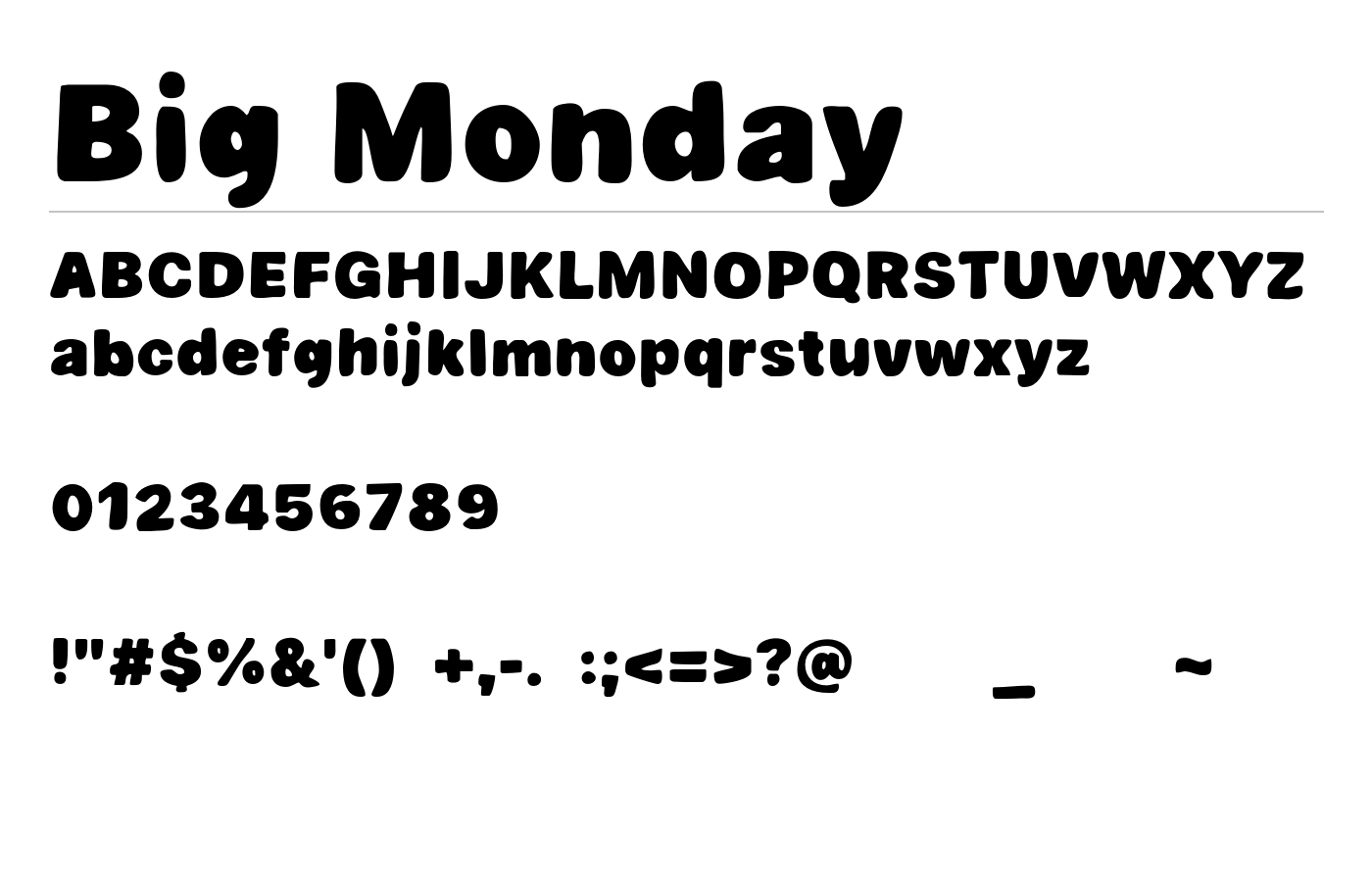
Big Monday is a bold, playful sans-serif font with chunky, rounded letterforms that create a friendly and approachable vibe. Its thick strokes and slightly irregular shapes make it ideal for casual, fun designs like kids’ products, posters, and branding that needs a lively, informal touch. This font works best in headline and display settings where its quirky personality can really stand out.
Big Monday Font
About Big Monday Font
| Font family | Big Monday Font |